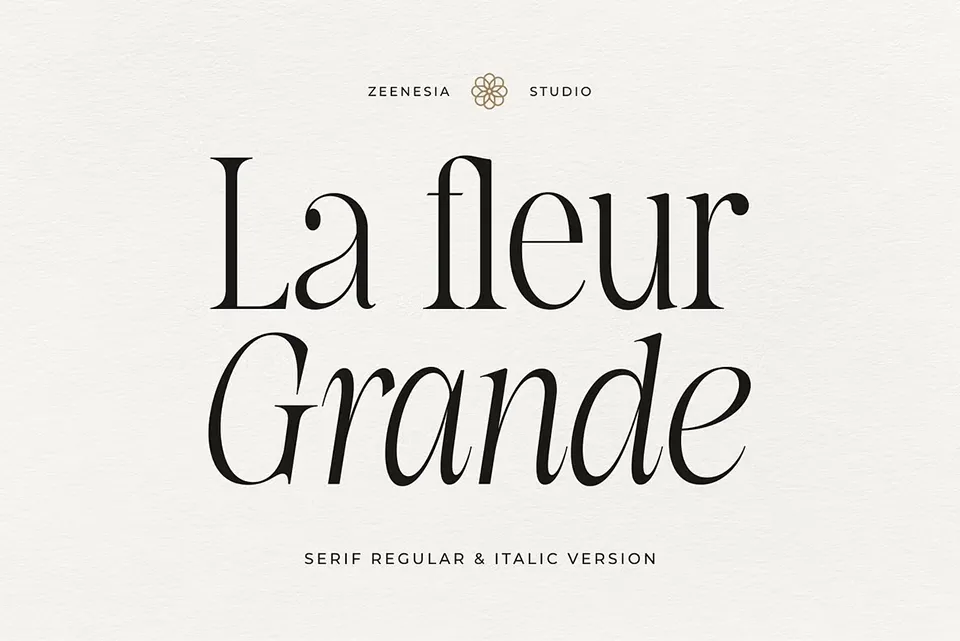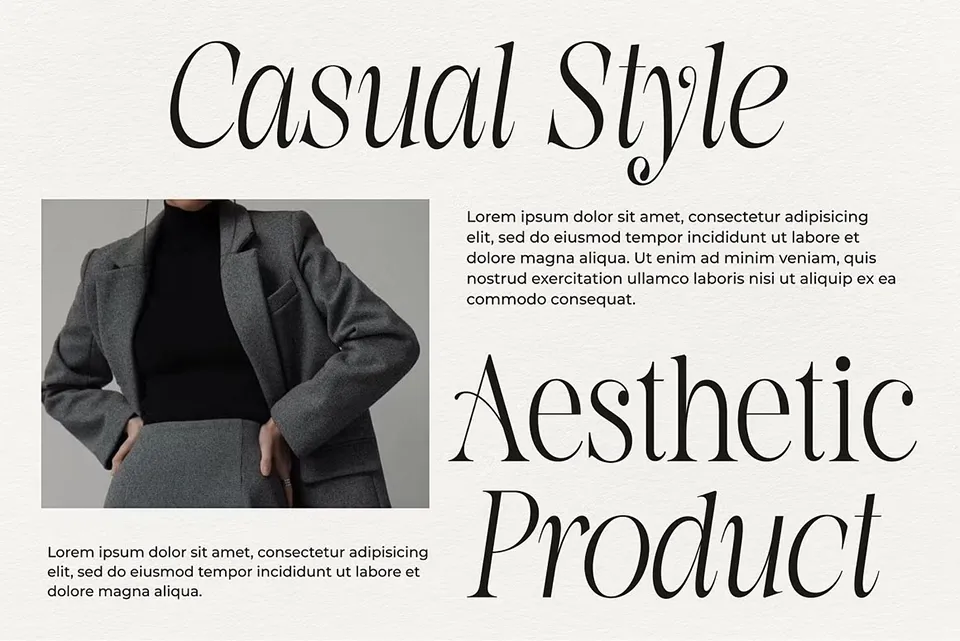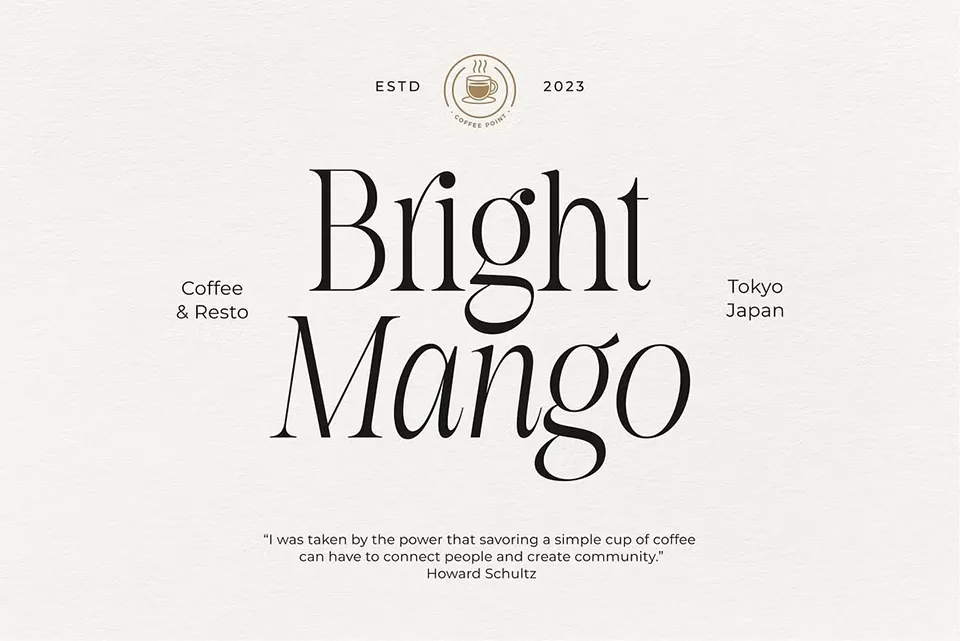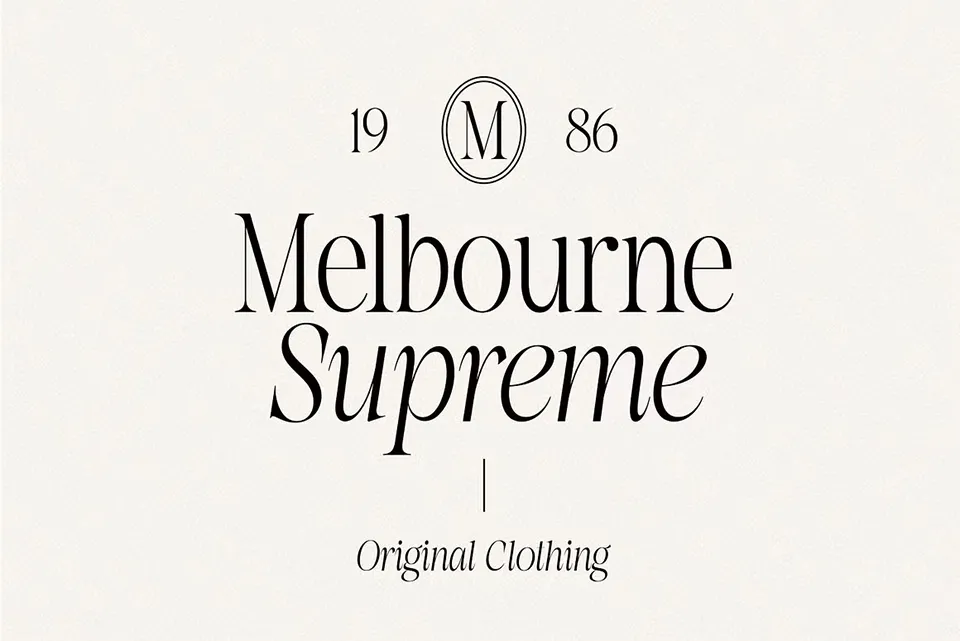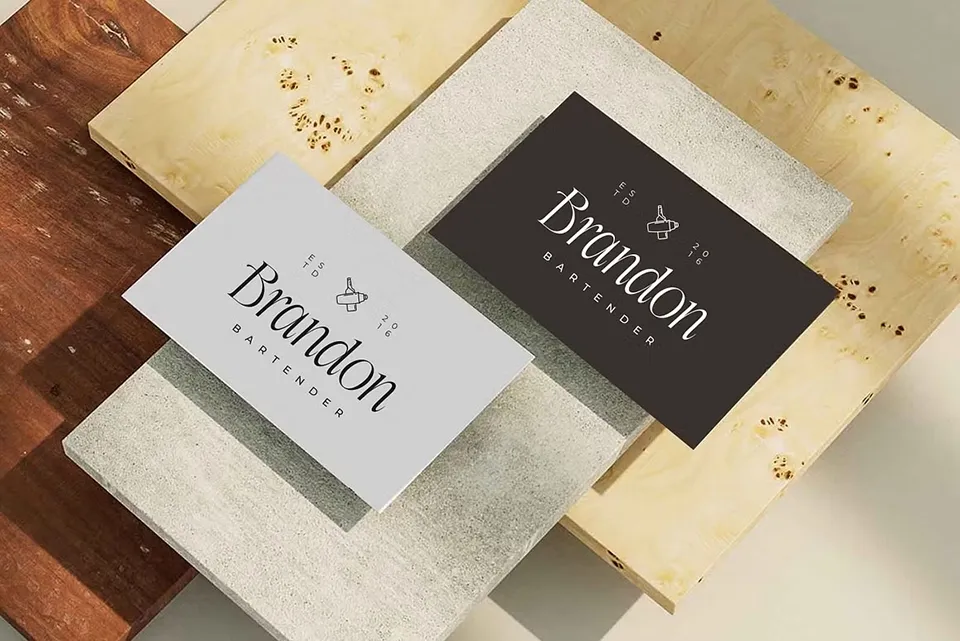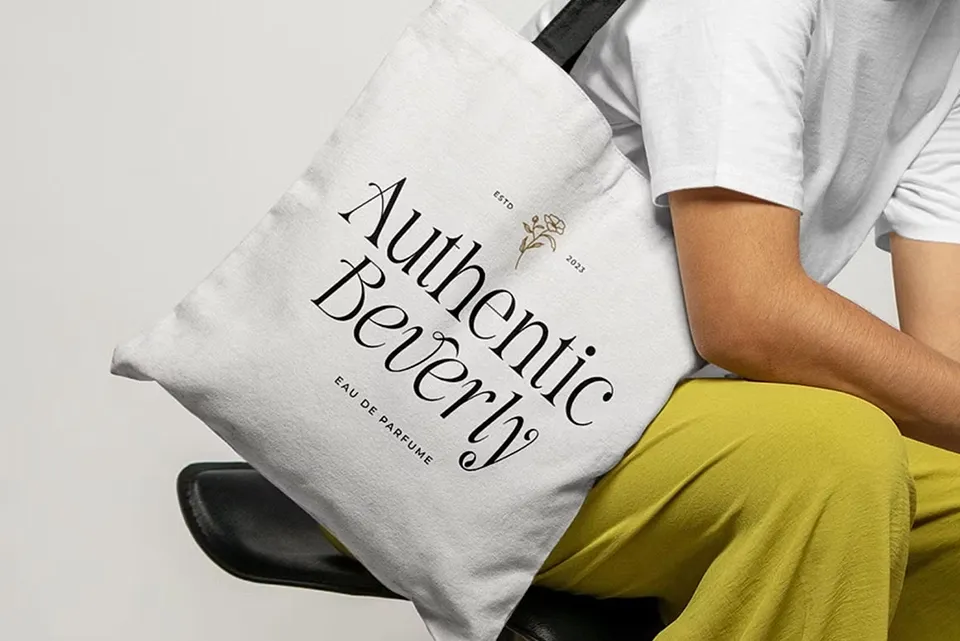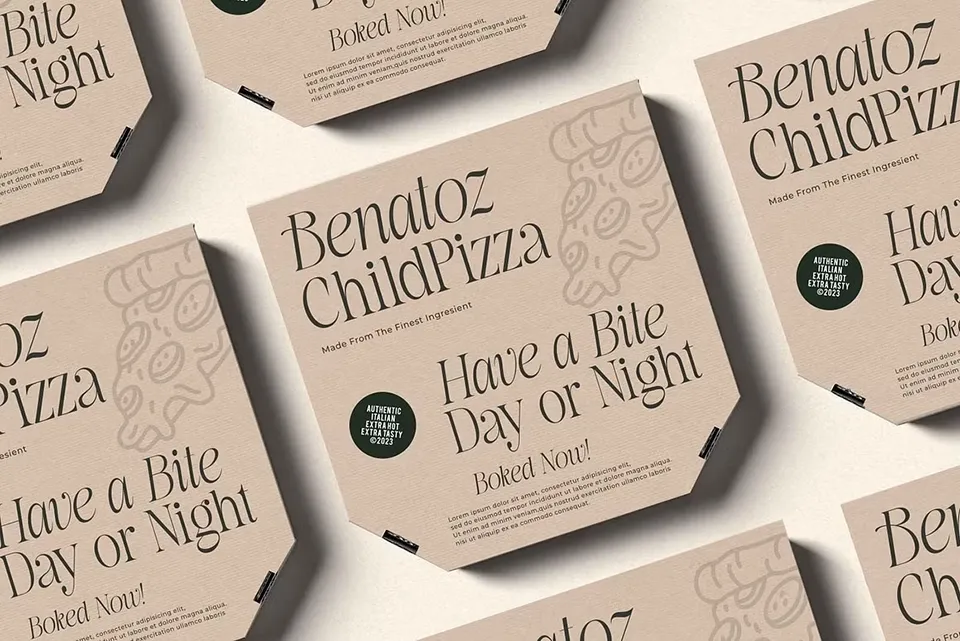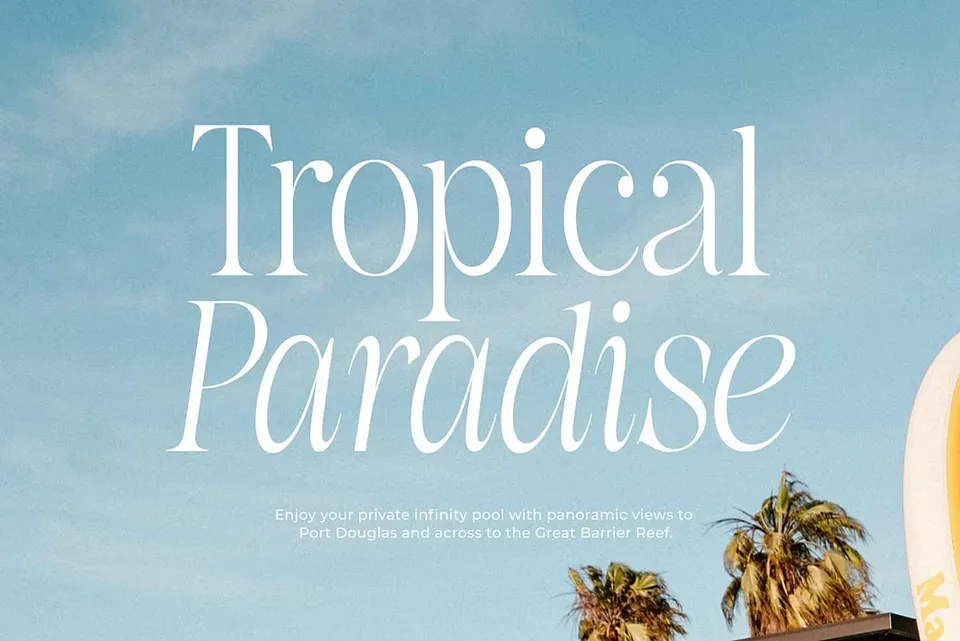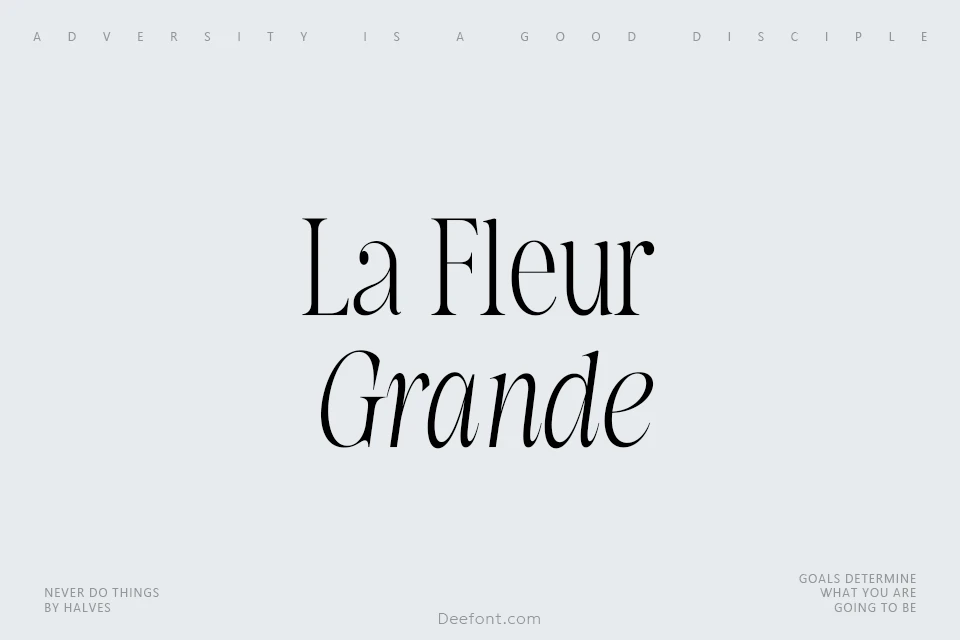
La Fleur Grande Font
La Fleur Grande Font is a refined serif typeface that embodies sophistication and grace. With its delicate curves and elegant letterforms, this font adds a touch of luxury to any design project. Perfect for creating high-end branding, wedding invitations, editorial layouts, and more, La Fleur Grande exudes timeless beauty and readability. Its versatility allows it to shine in both headline and body text, making it an excellent choice for a wide range of applications. Elevate your designs with the floral-inspired charm and grand presence of La Fleur Grande Font!